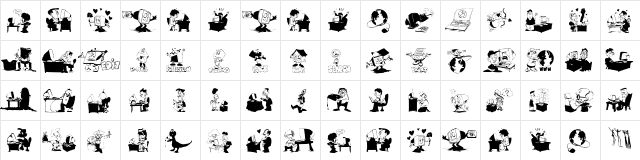
WebWideWorld Regular
Design Context for WebWideWorld Typeface
WebWideWorld is a composed and adaptable typeface that performs quietly and consistently across a wide range of design contexts.